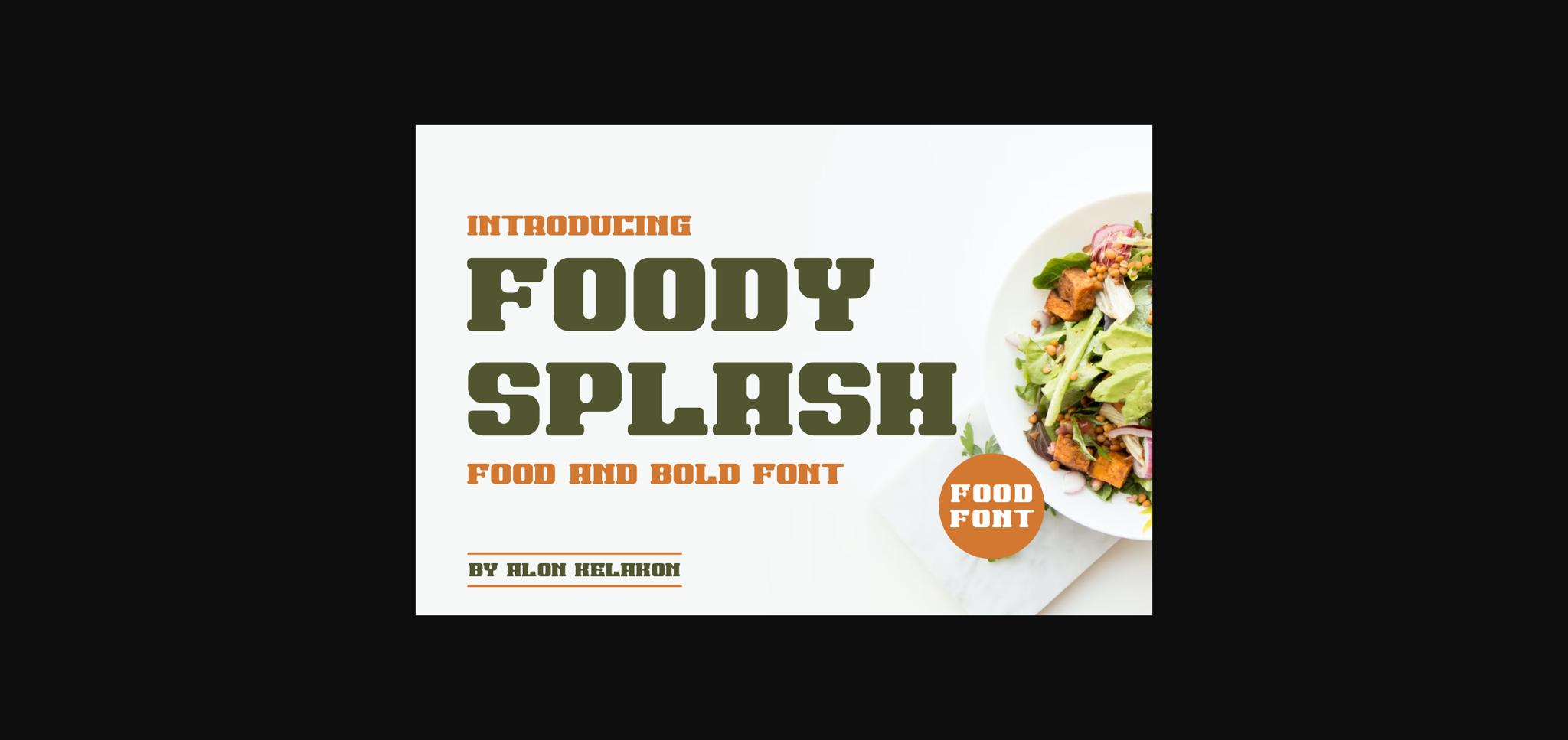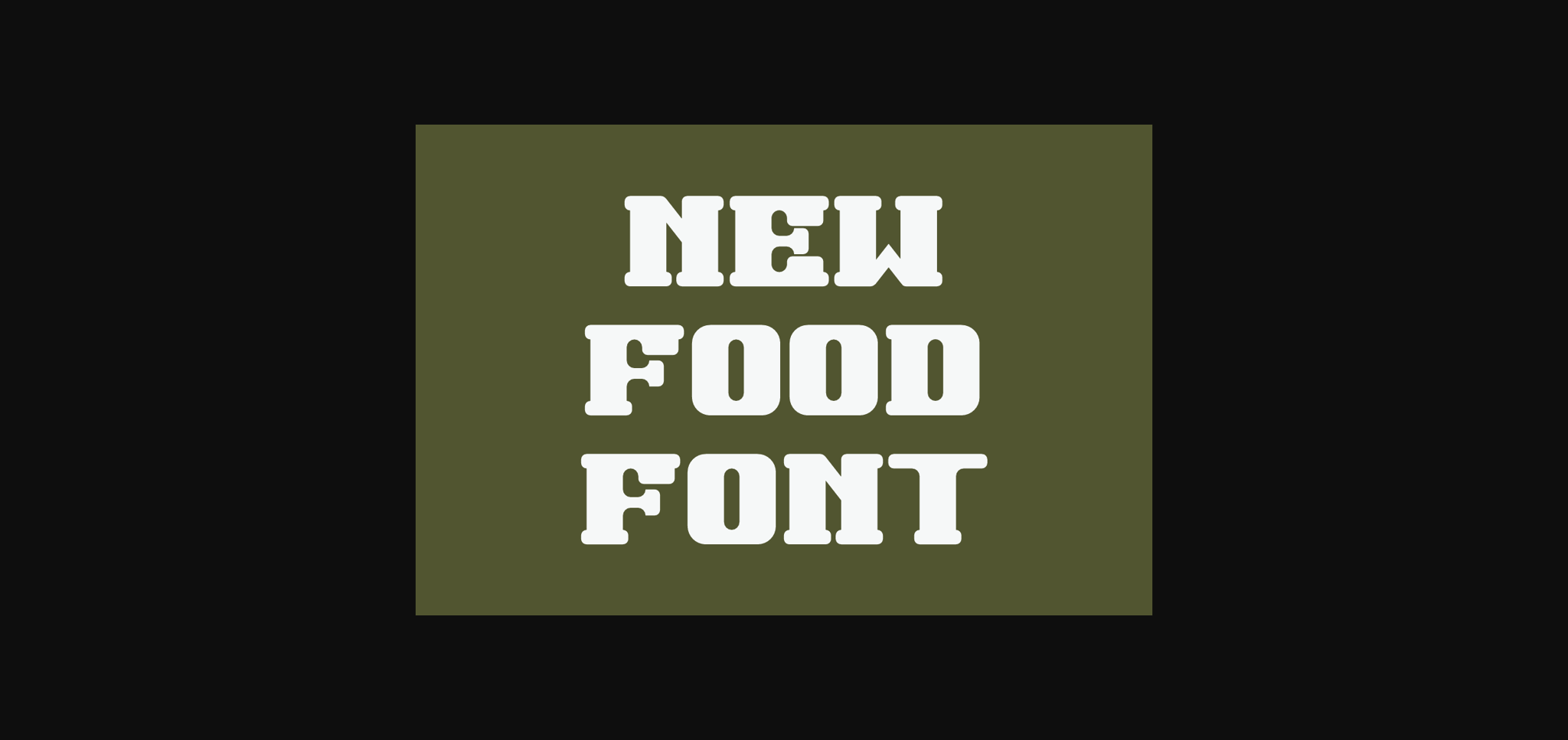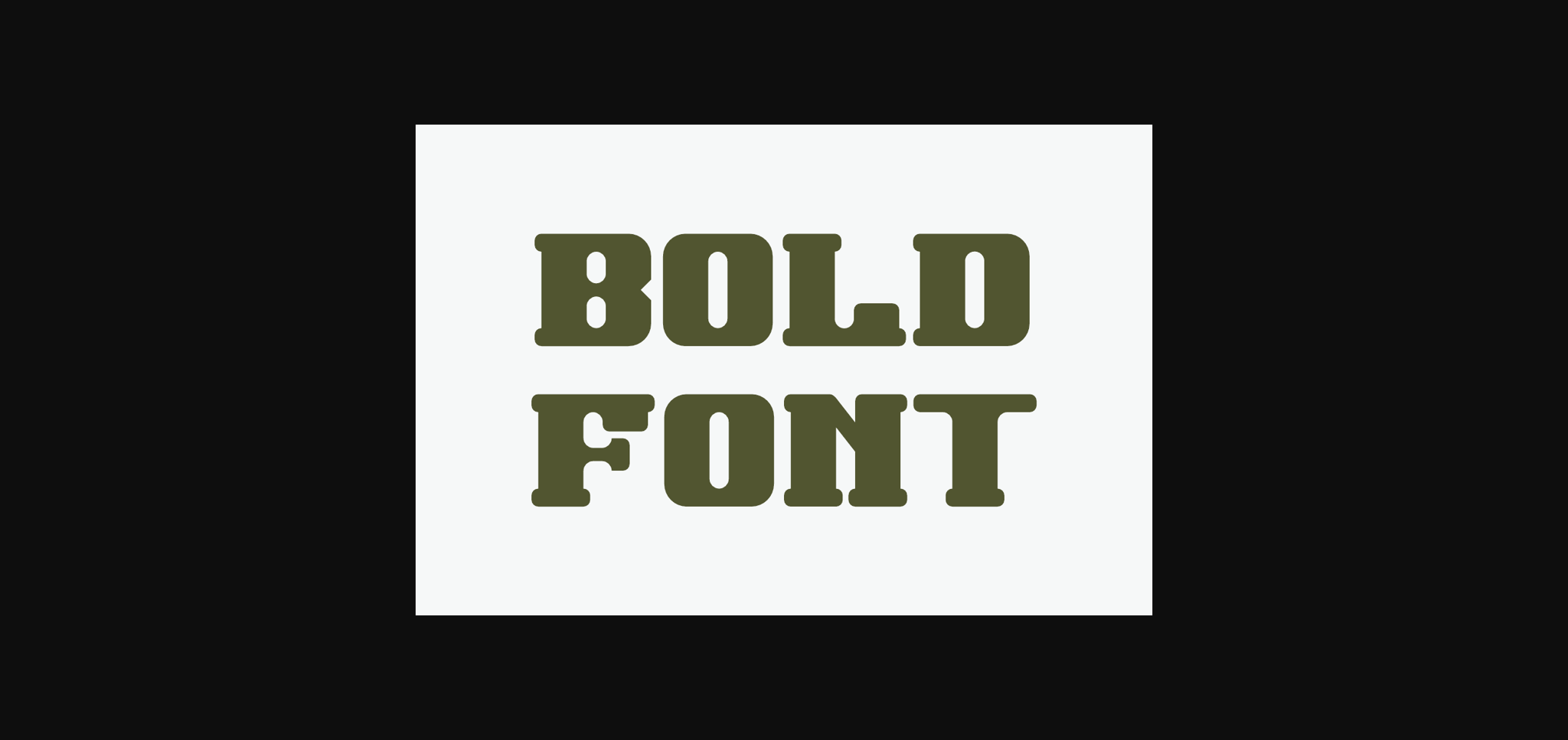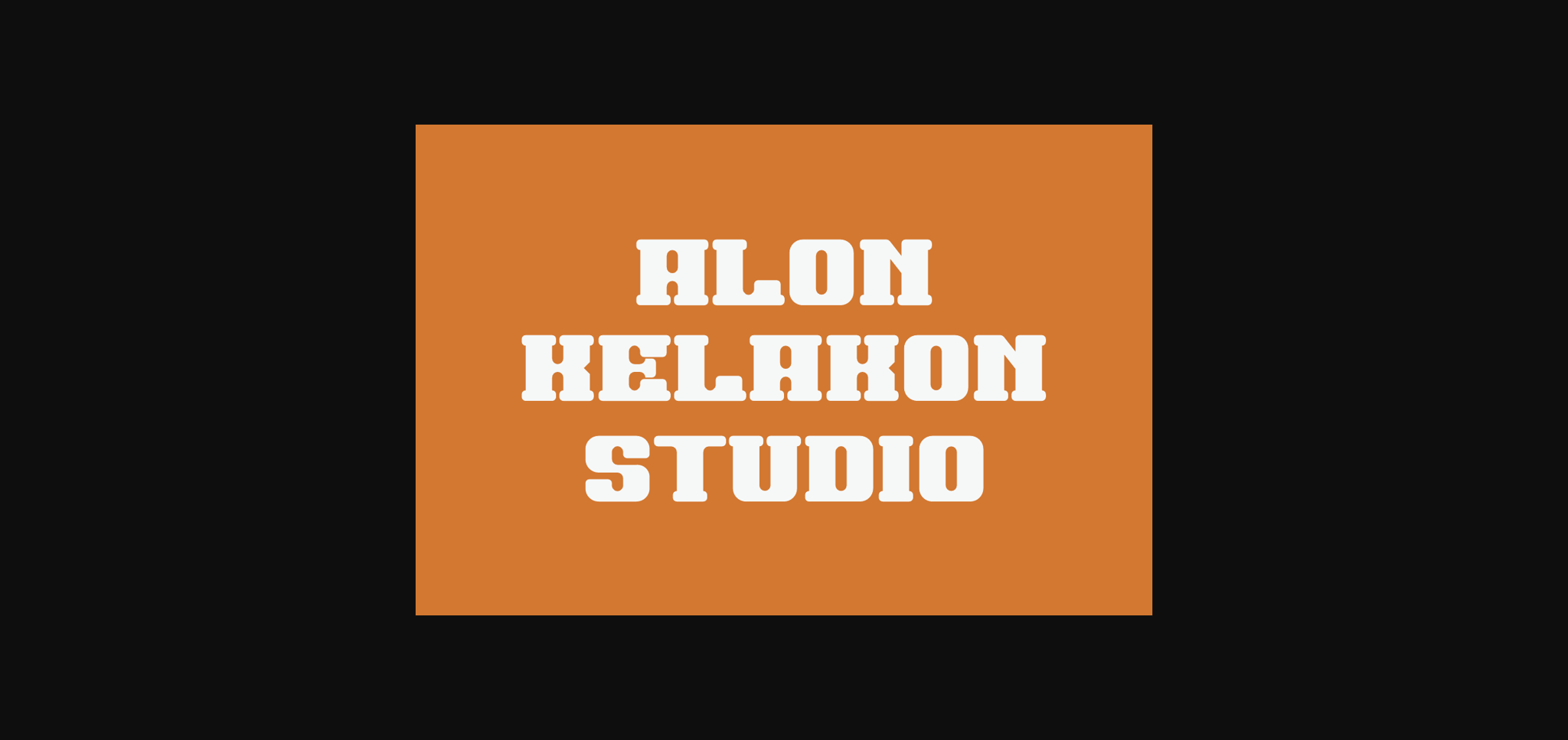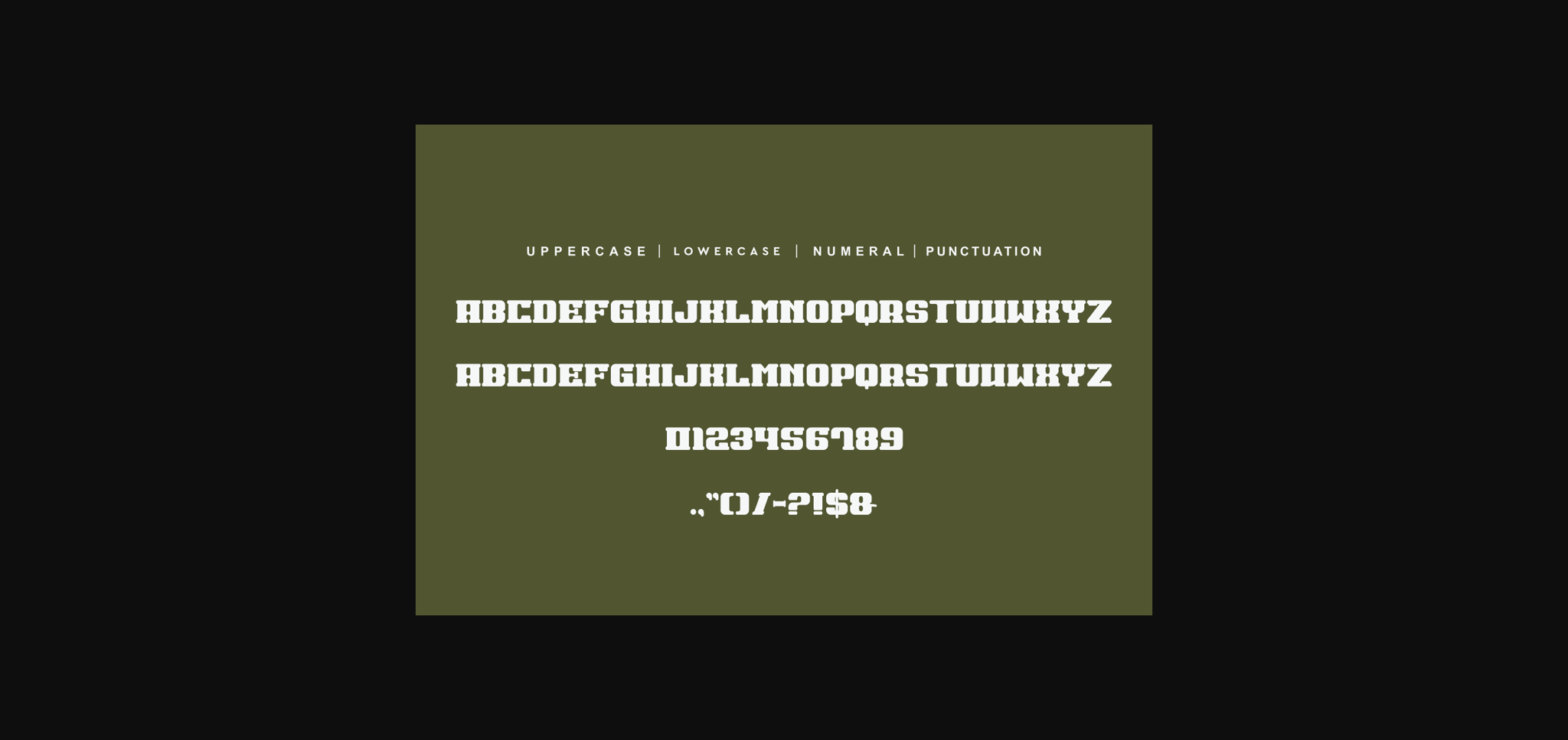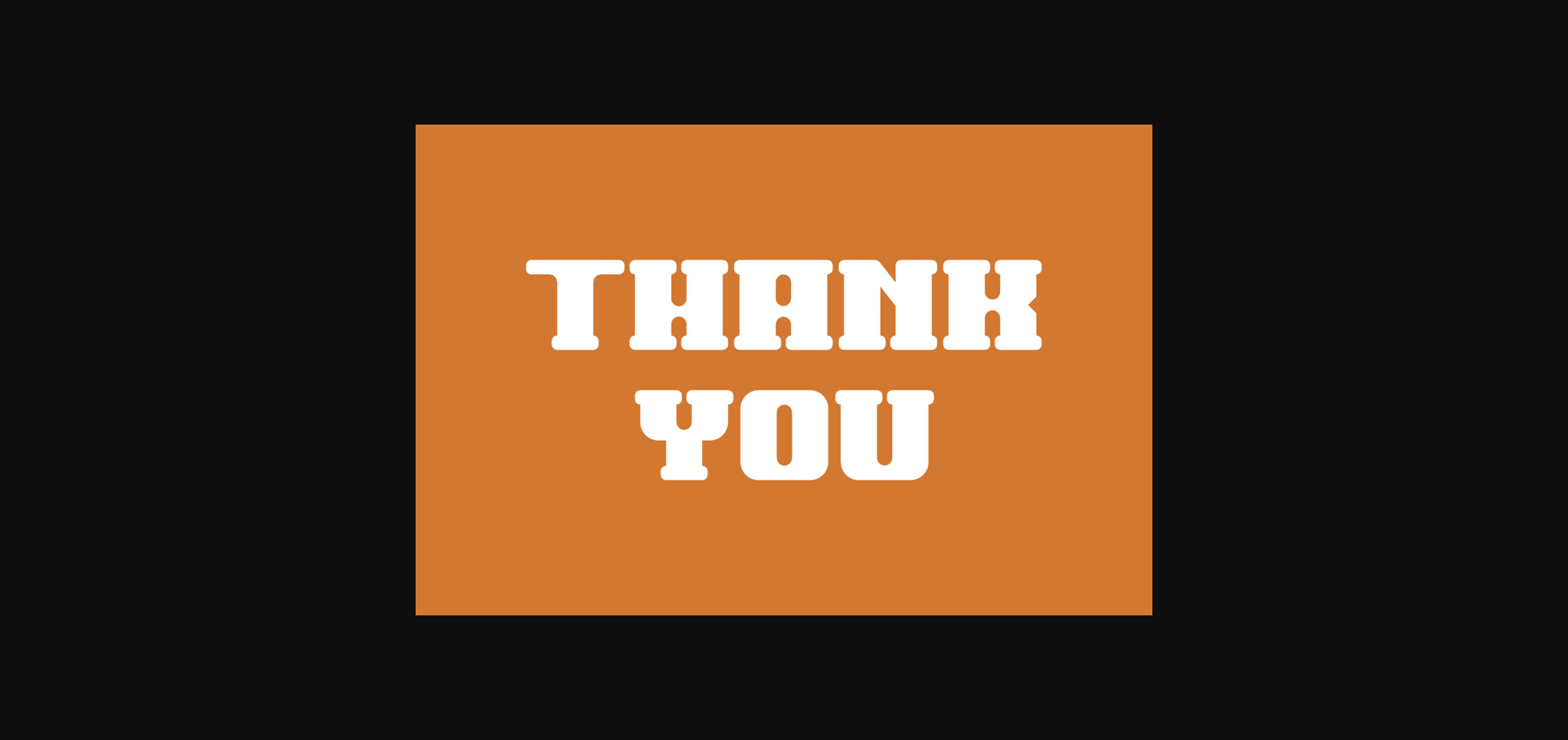
Foody Splash Font
About Foody Splash Font
Foody Splash is a bold, all caps sans serif font featuring the perfect amount of trendiness. Whether you’re using it for crafting, digital designing, presentations or greeting cards making, it’s perfect!